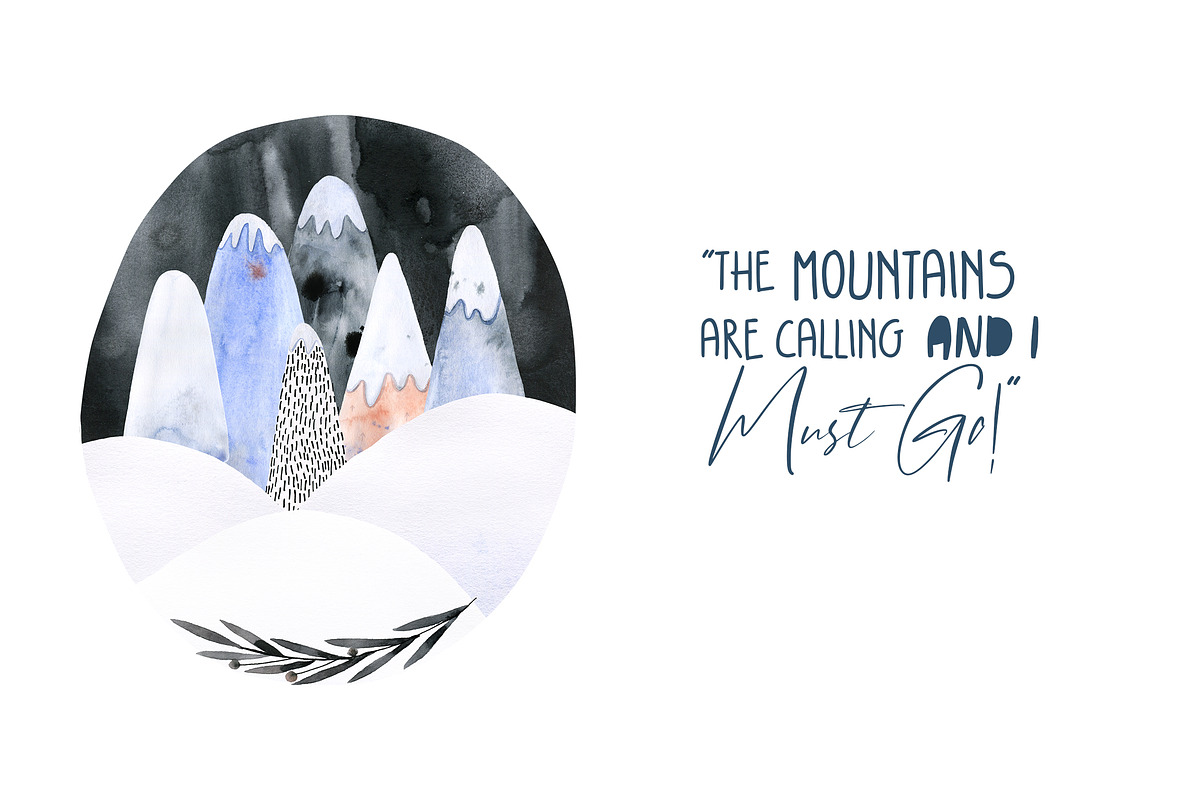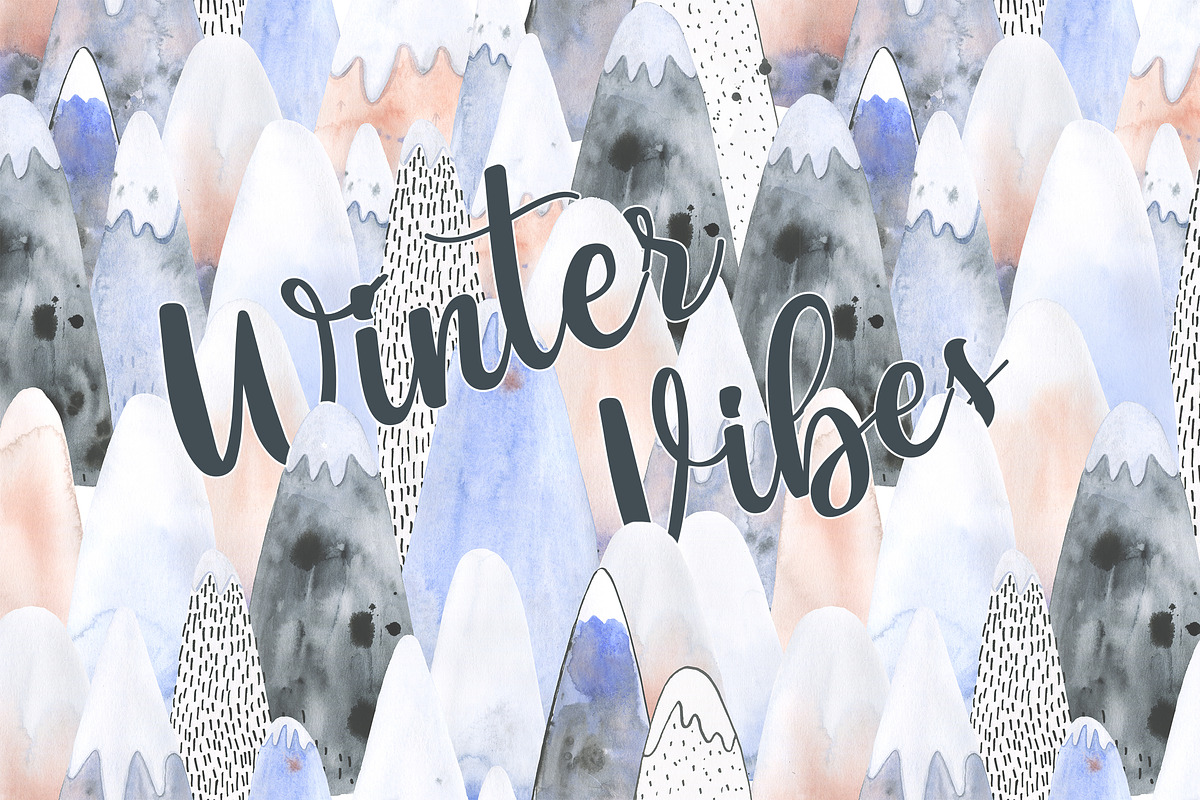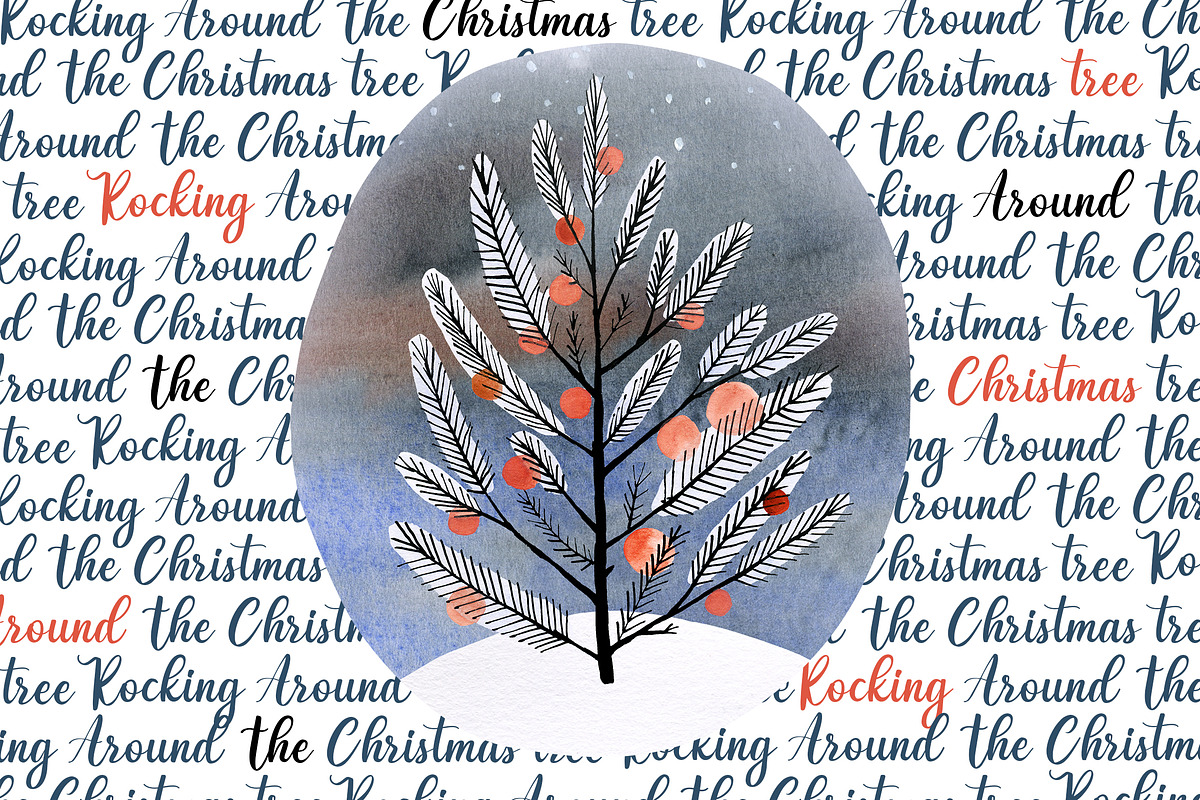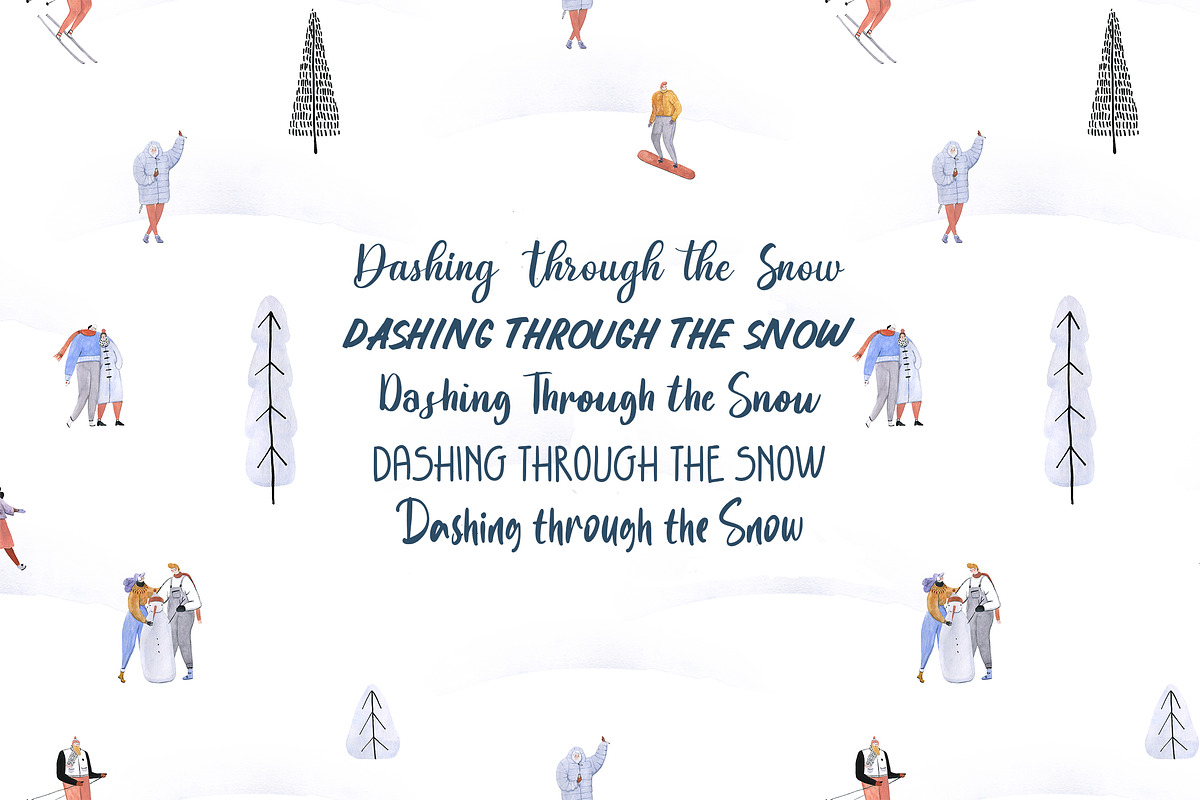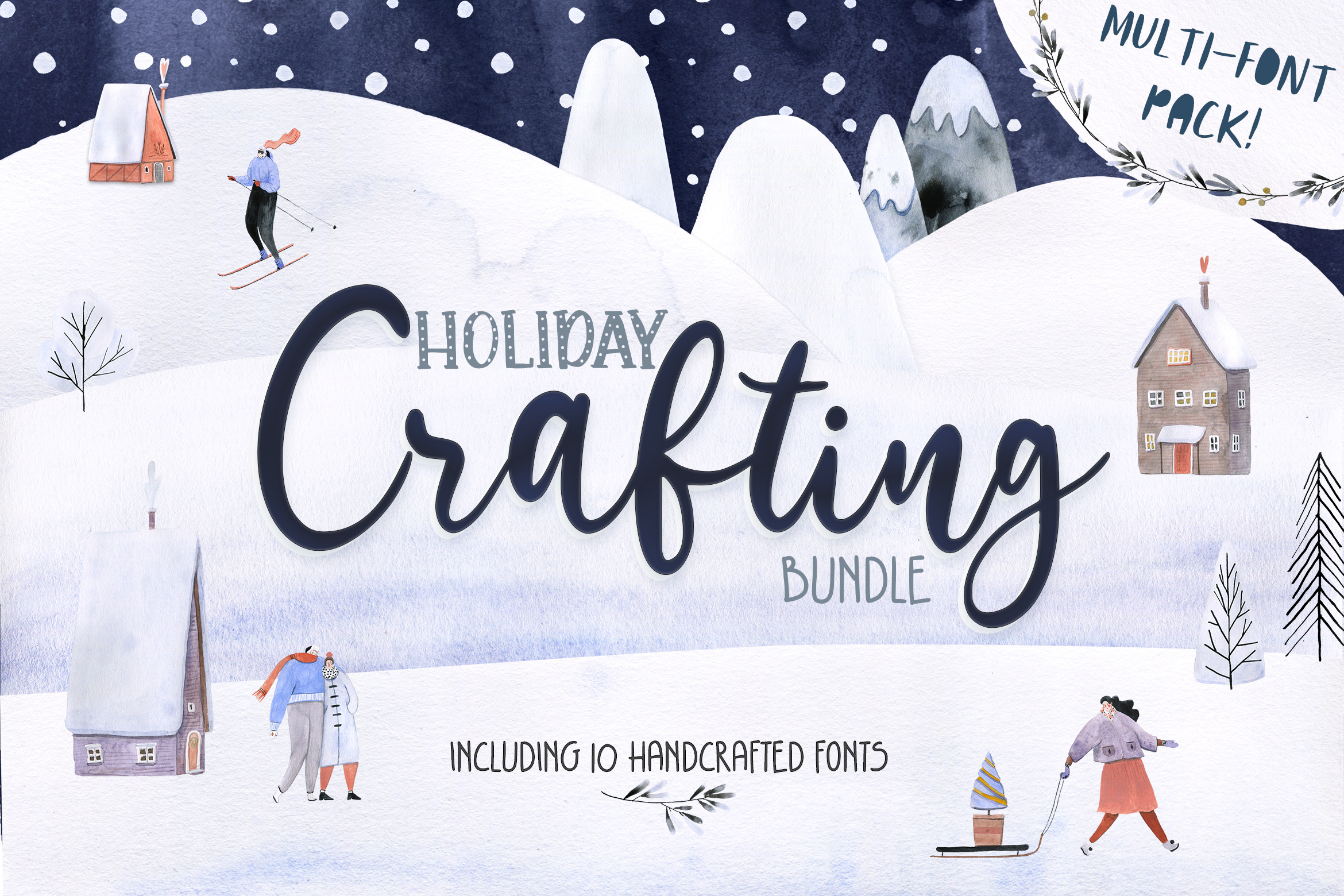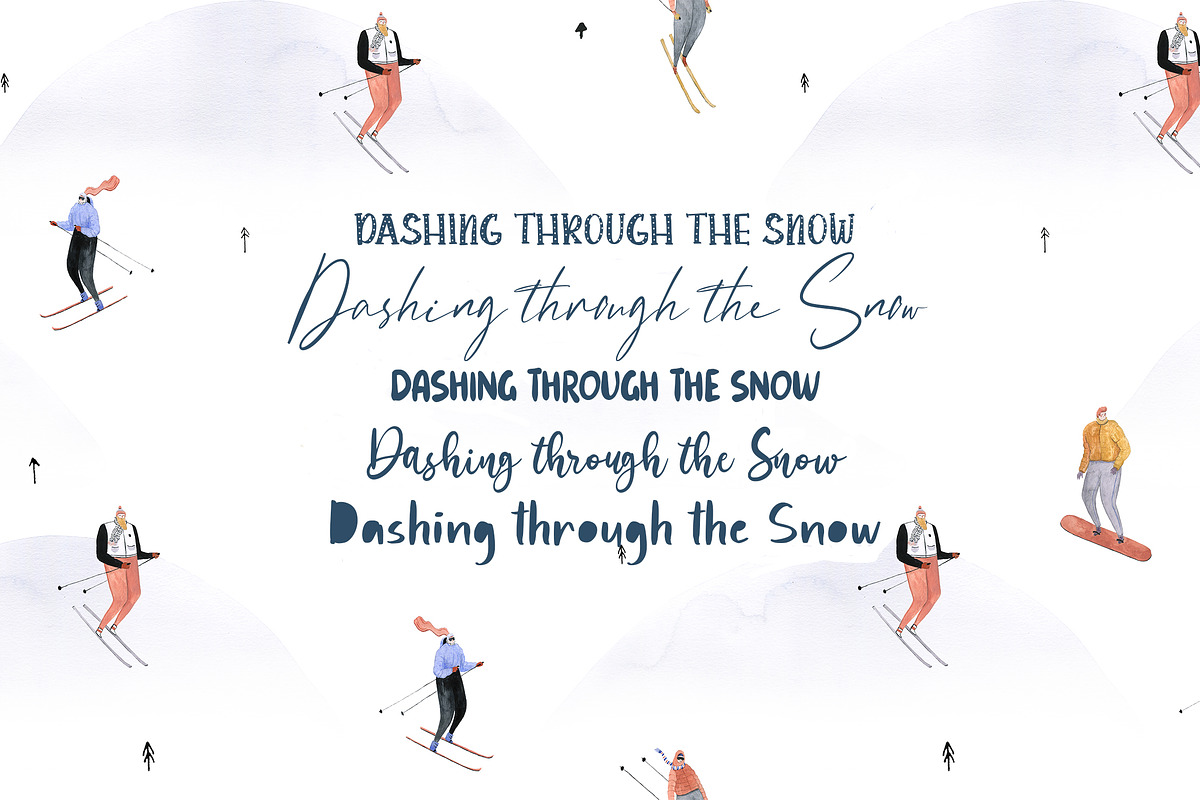
The Holiday Crafting Font Bundle
Introducing the Holiday Crafting Font Bundle. This super cute collection includes 10 previously unreleased fonts! Hurry this pack will only be available for a limited period.